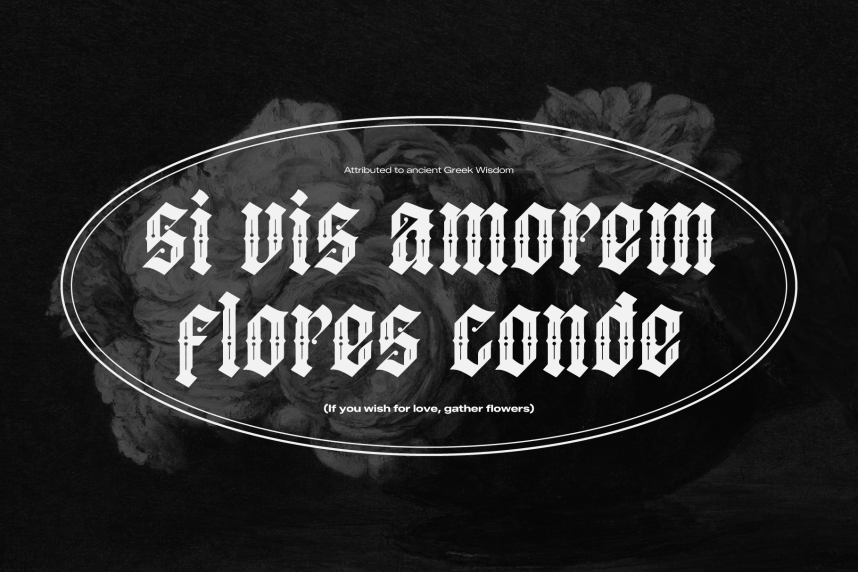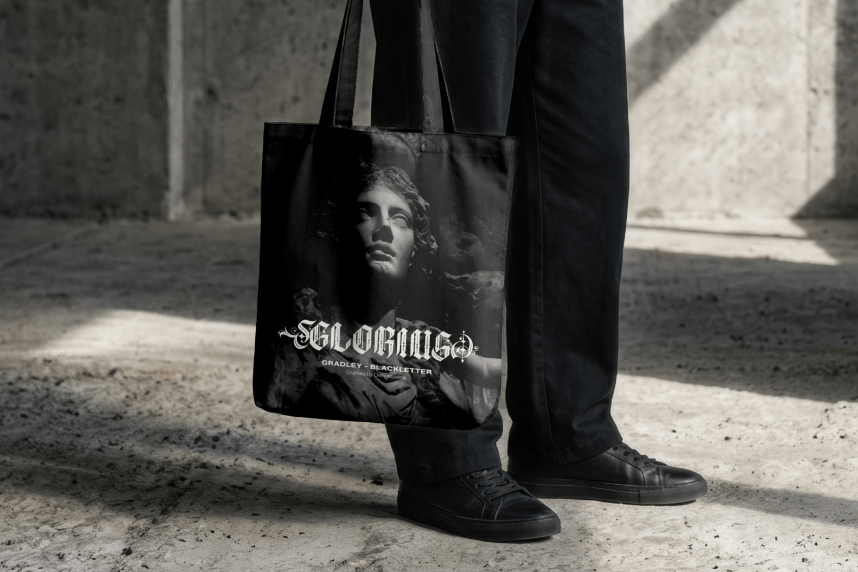
Gradley | Blackletter Font product packaging, mugs, quotes, posters, shopping bags, t-shirts, book covers, name card, invitation cards, greeting cards, label, photography, watermark, special events, and all your other lovely projects that need a Blackletter font taste.